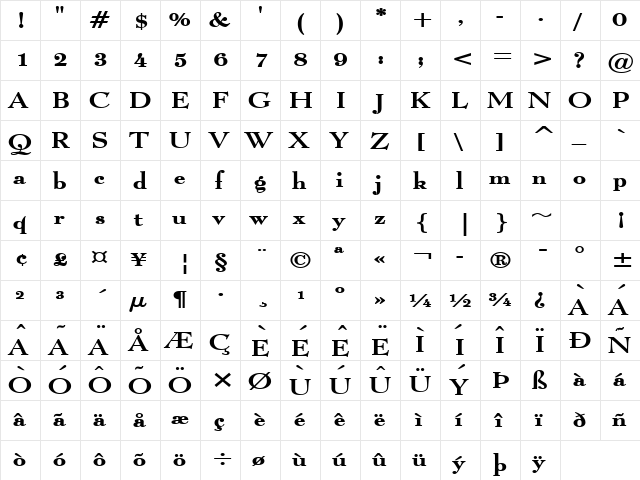
Luciano Wide Bold
Design Context for Luciano Wide Typeface
Luciano Wide takes a measured approach to typography — its balanced proportions and neutral character make it a reliable workhorse for both digital and print work. Its bold stroke weight gives it real presence on the page.